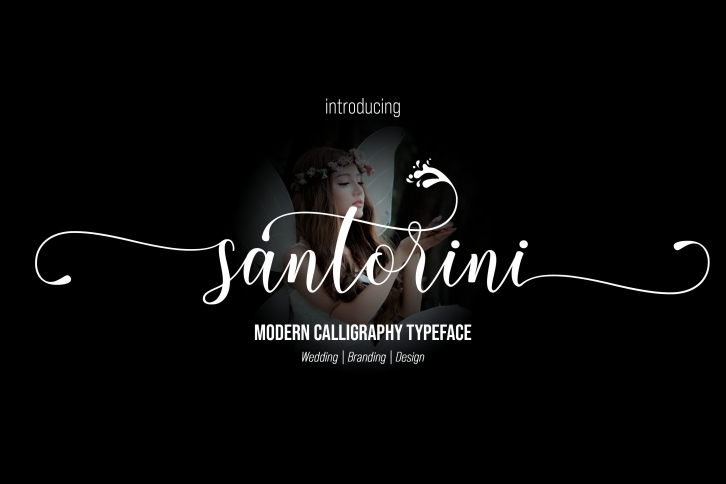
Santorini Script is a trendy and unique font with an authentic style. It was designed by MrLetters and it's a great choice for creative people who need such a font. It was released on June 8, 2021 and the file size is 8.20 MB. Santorini Script will add an organic vibe to any design idea!